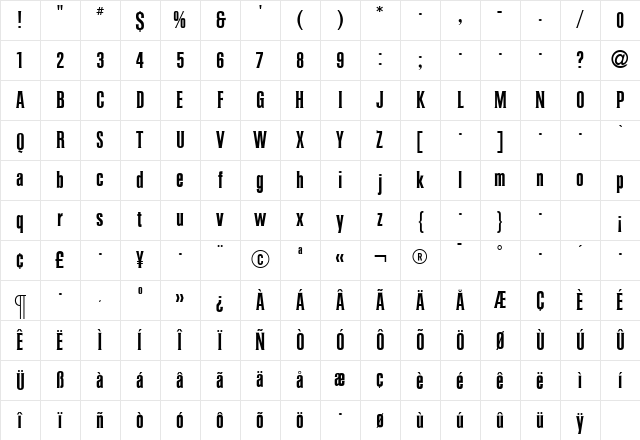
Complete ColiseumMedium Roman glyph index. Displaying only characters natively supported by ColiseumMedium Roman font.
ColiseumMedium is a composed and adaptable typeface that performs quietly and consistently across a wide range of design contexts.